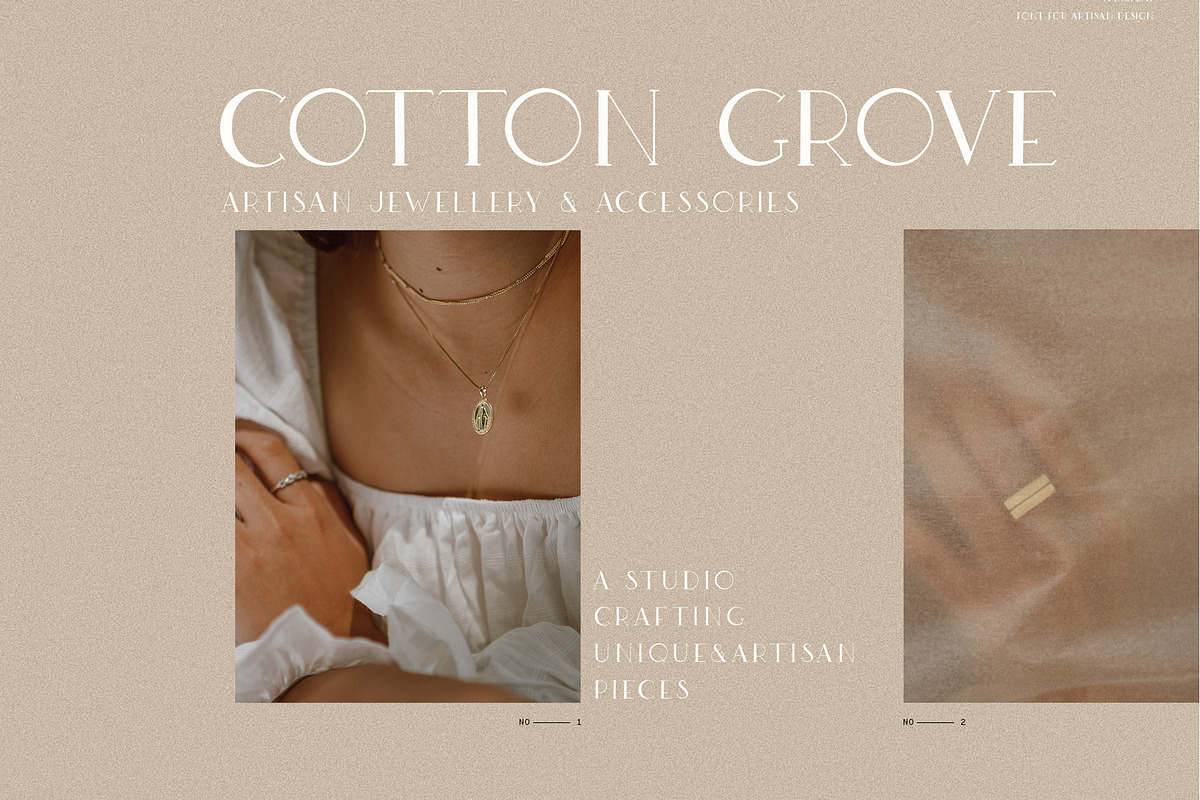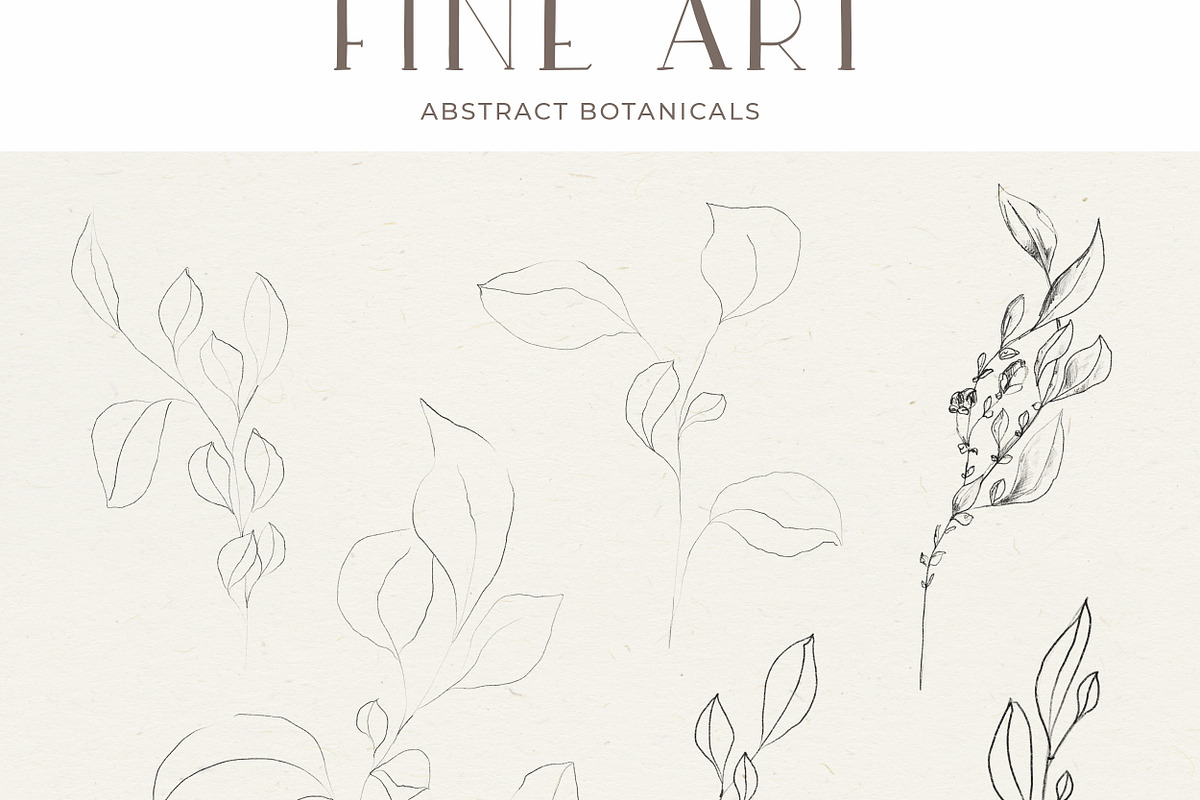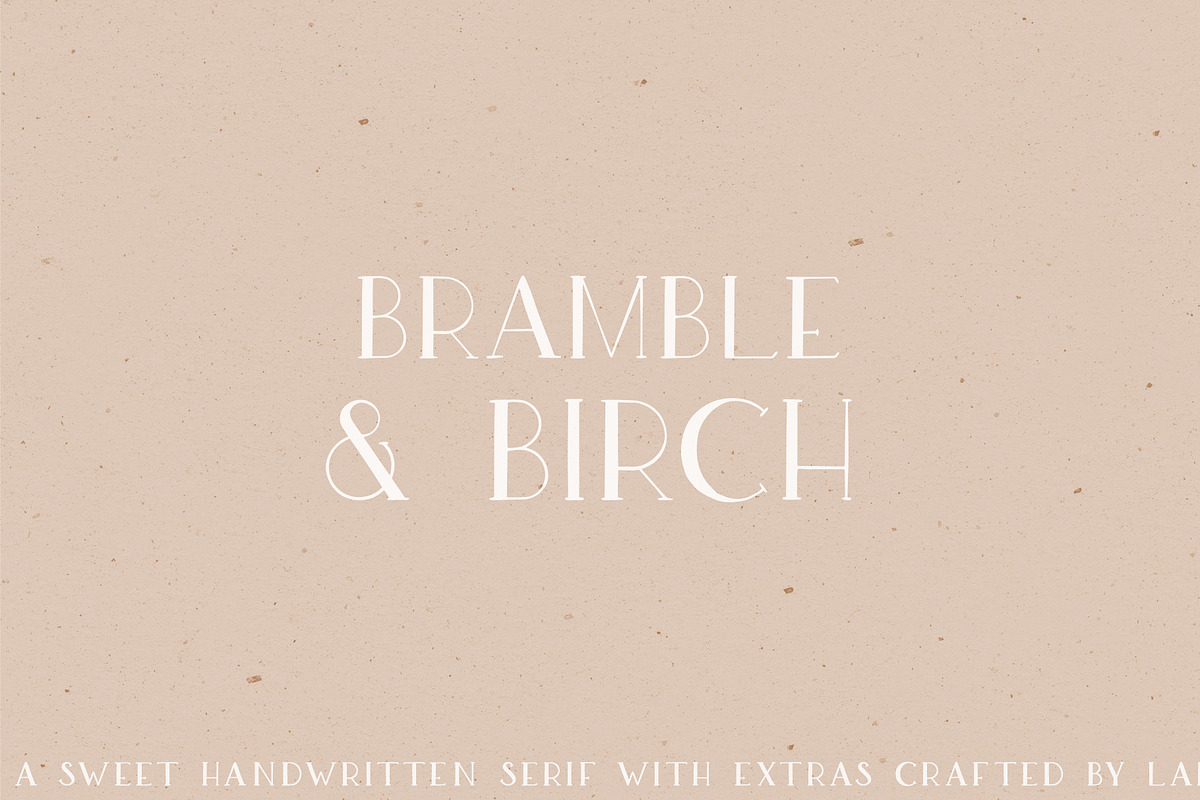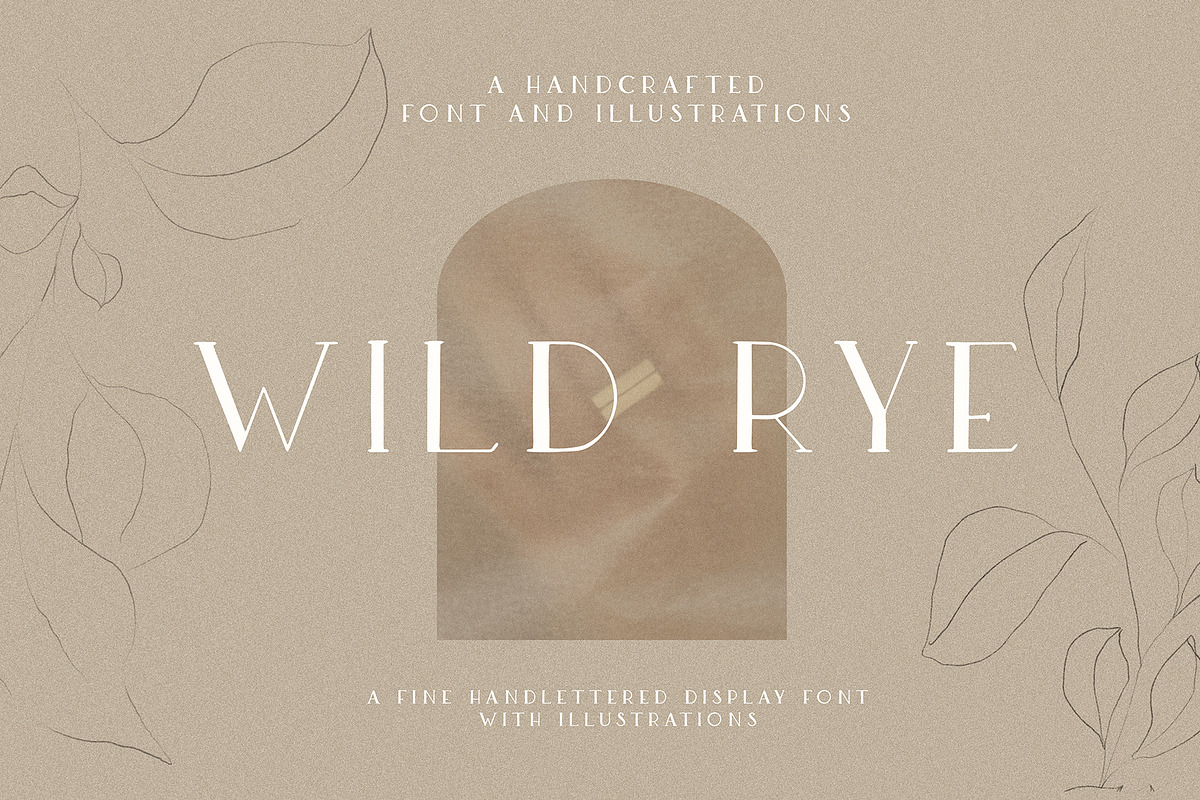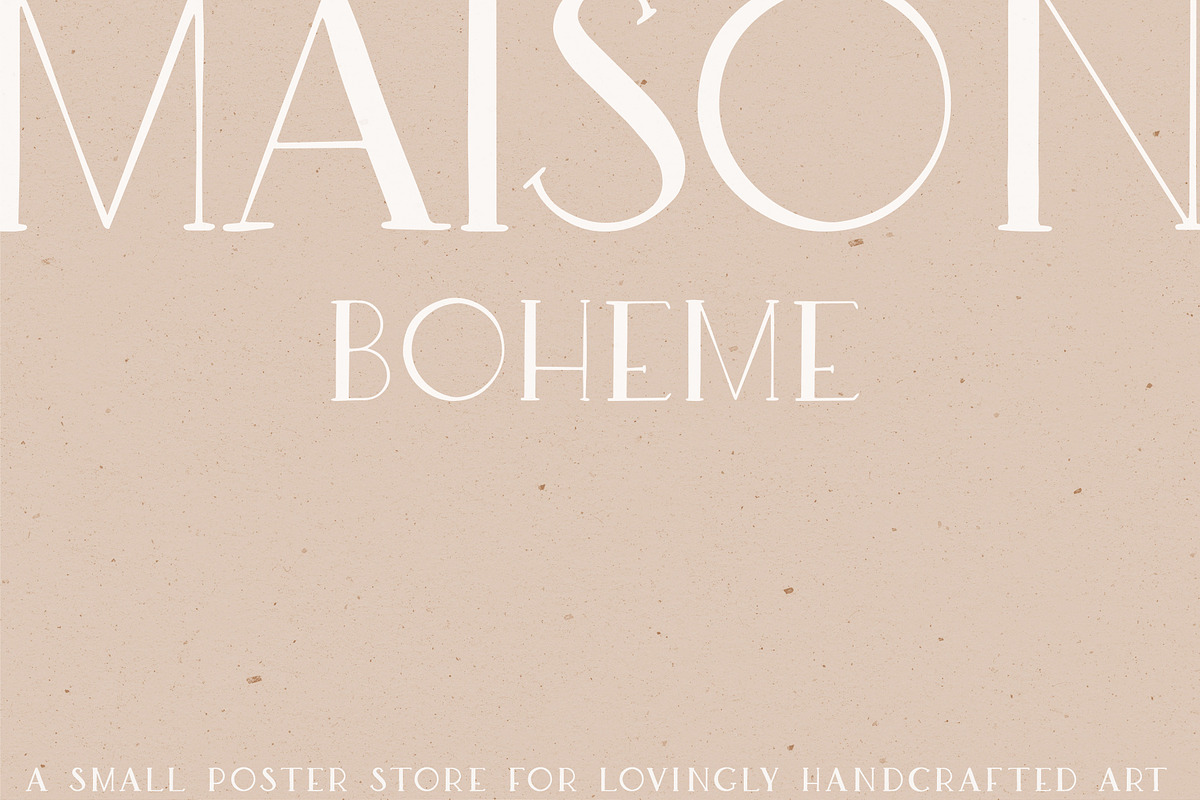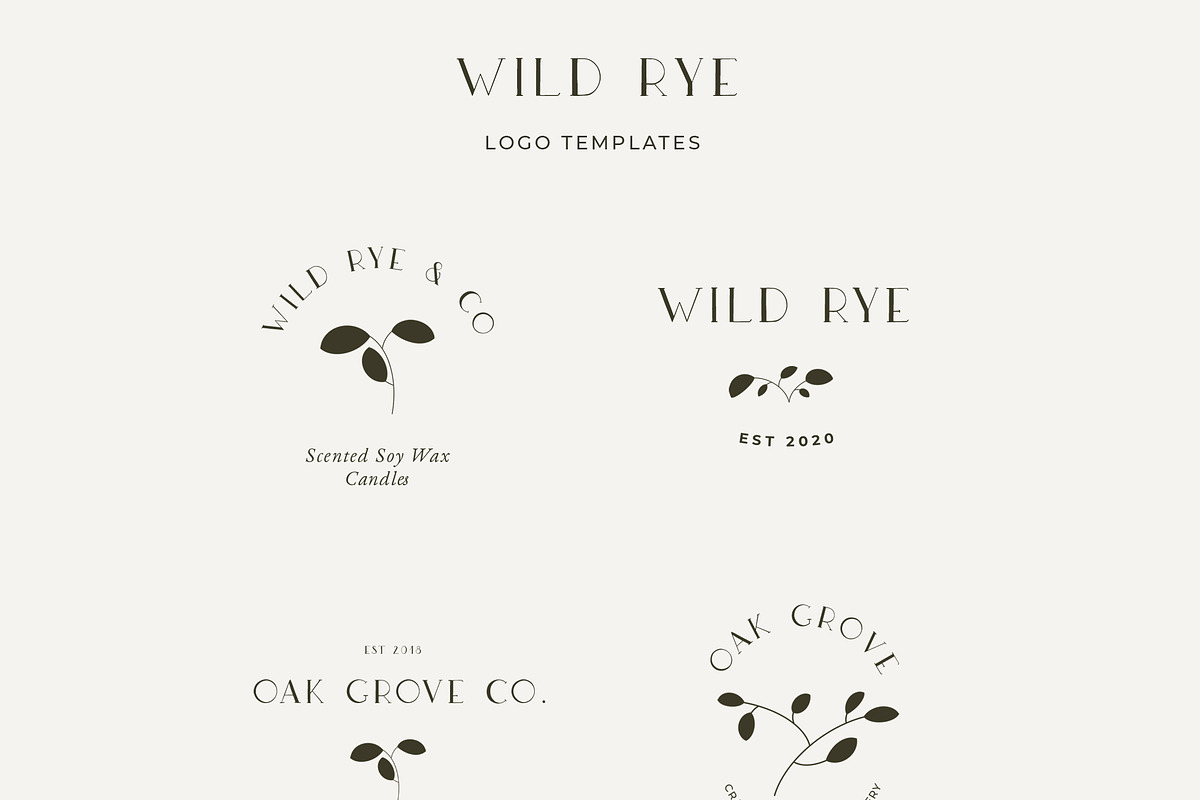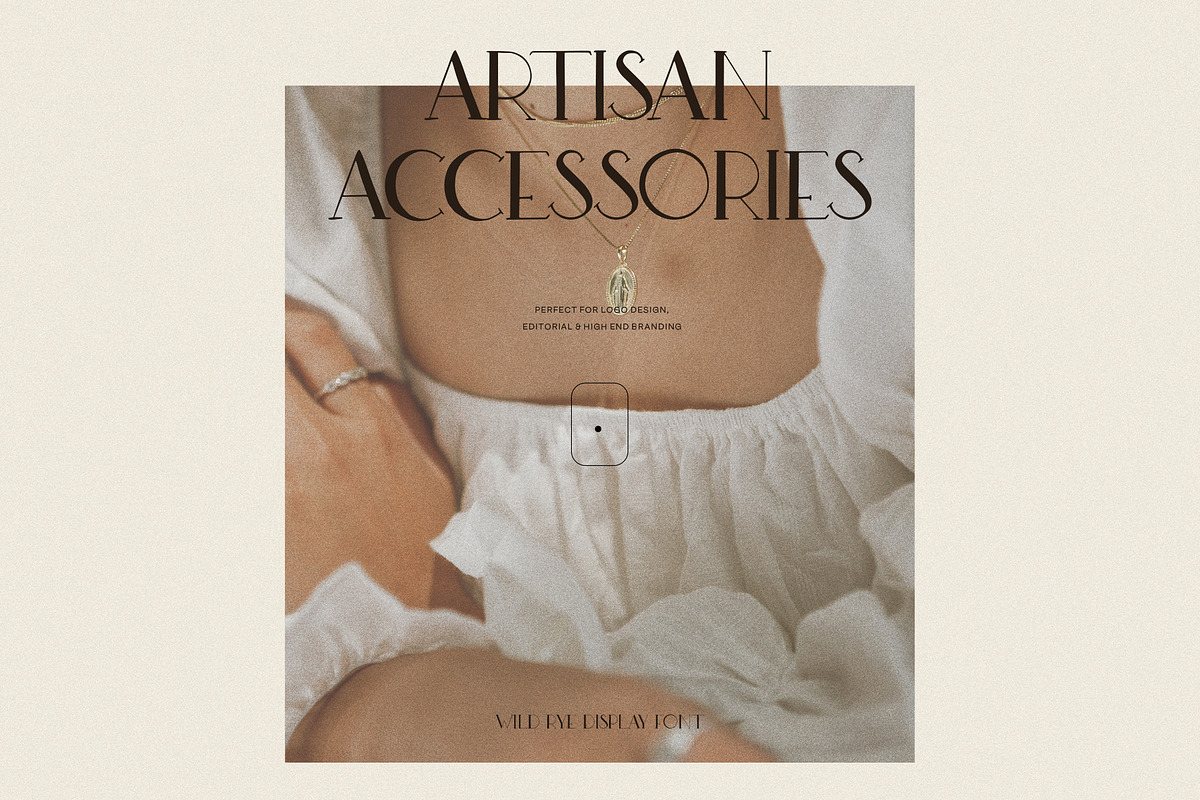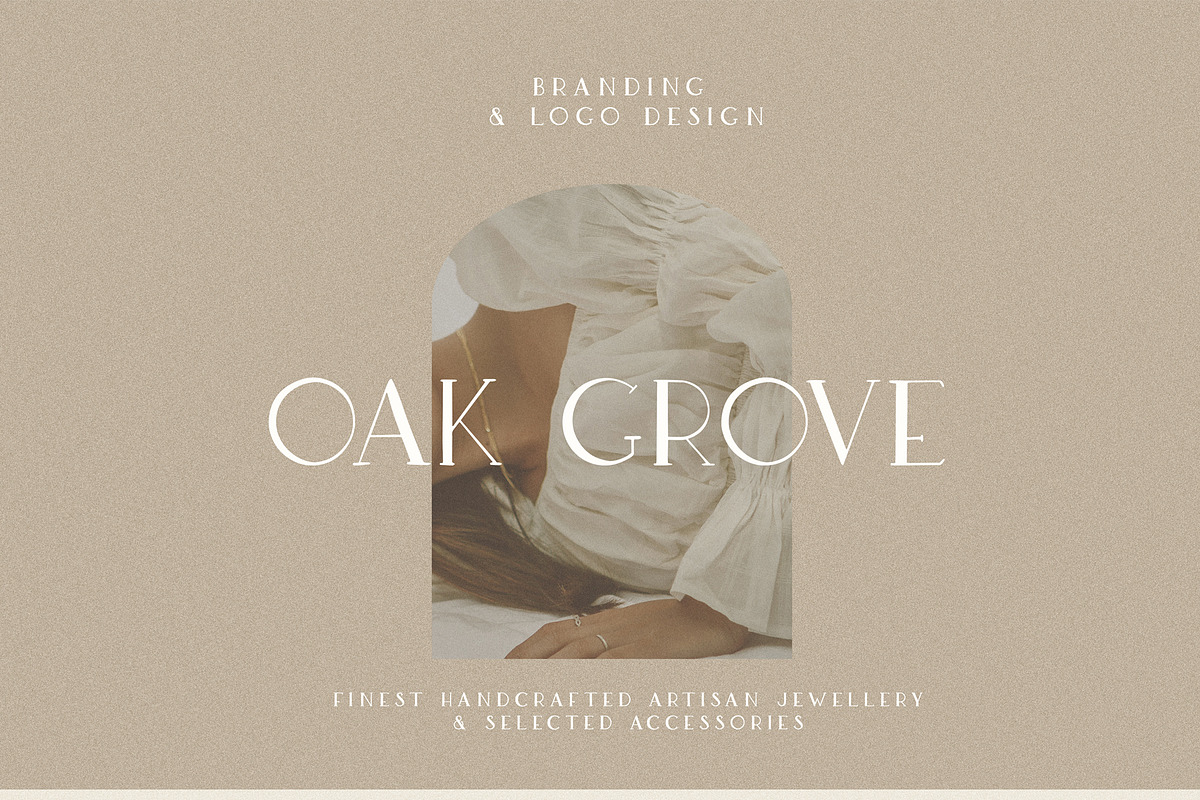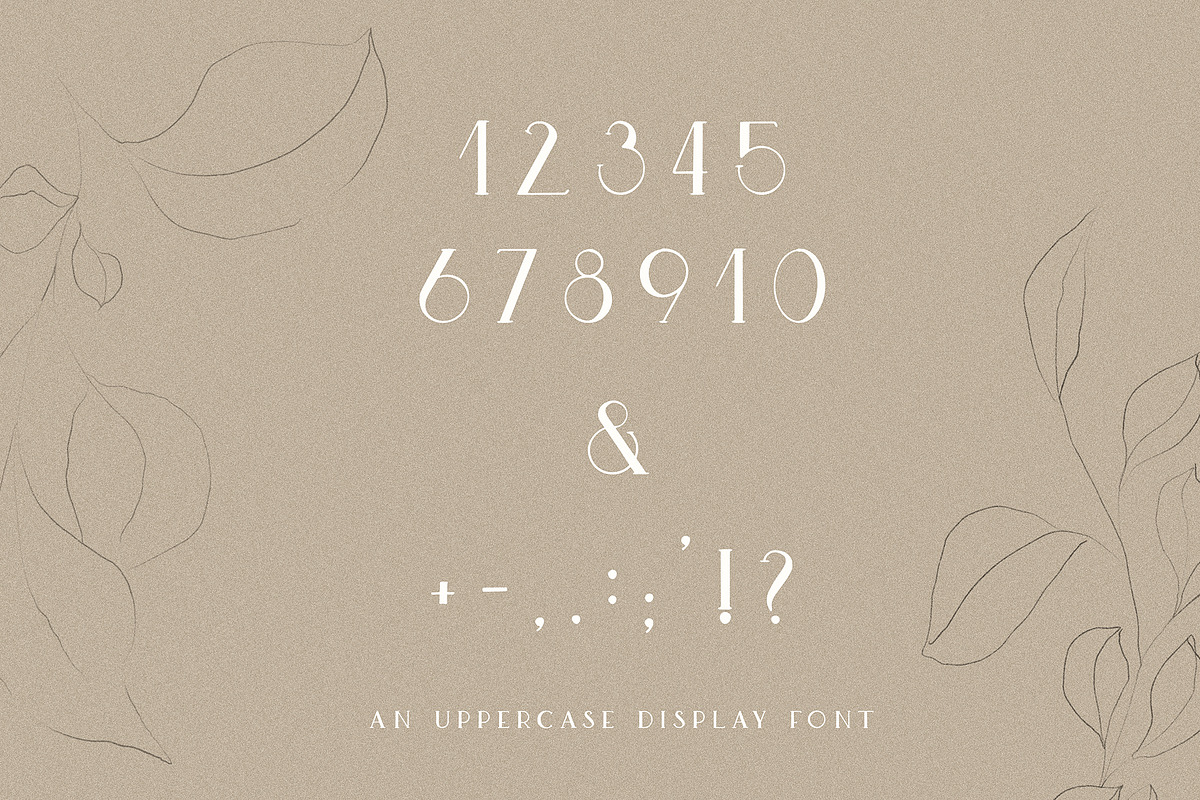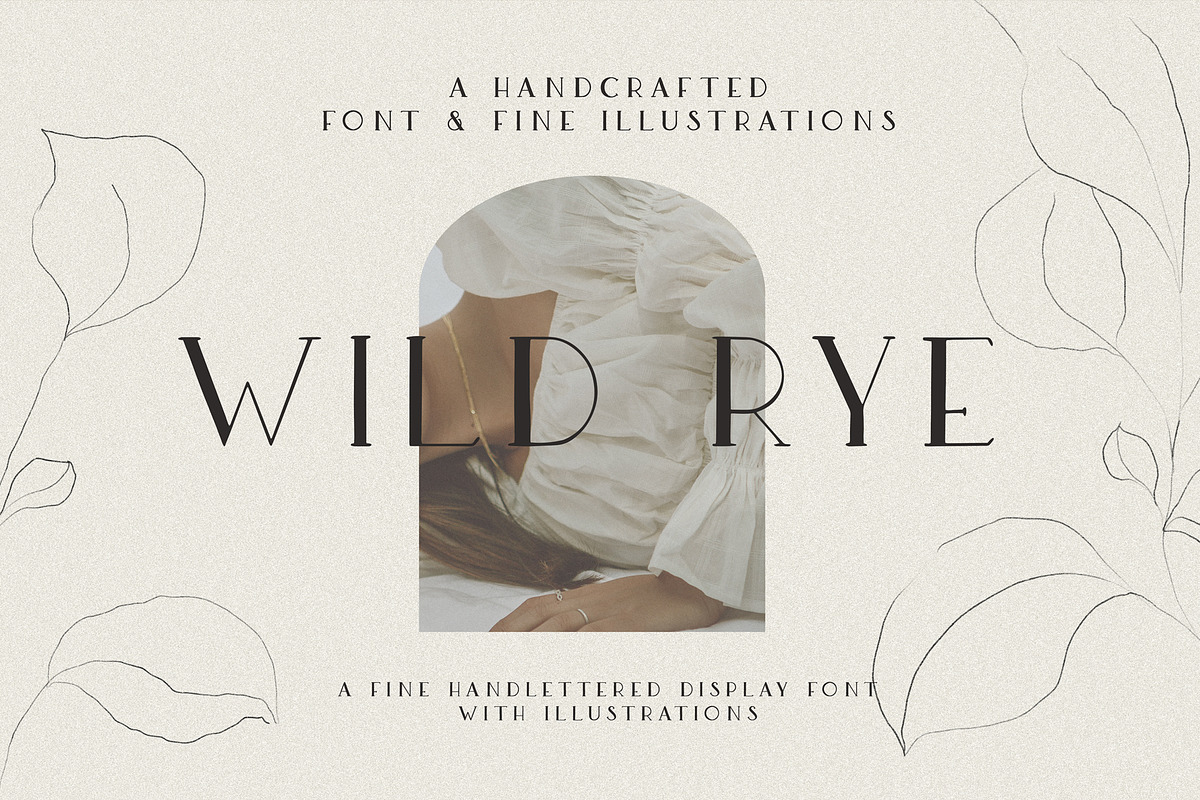
Wild Rye Hand Lettered Display Font
Welcome Wild Rye - a hand lettered uppercase display font, created to add a crafted finish to refined designs. An elegant serif with a handmade look that instantly adds a custom-made feel to logo designs and branding, editorial design, wedding invitation and stationery design or your very own artwork.
Wild Rye also comes with a collection of fine art botanicals and minimalist twigs and branches. They complete the font and are a perfect pair for instant logo designs, lovely thank you notes, crafts and DIY projects.